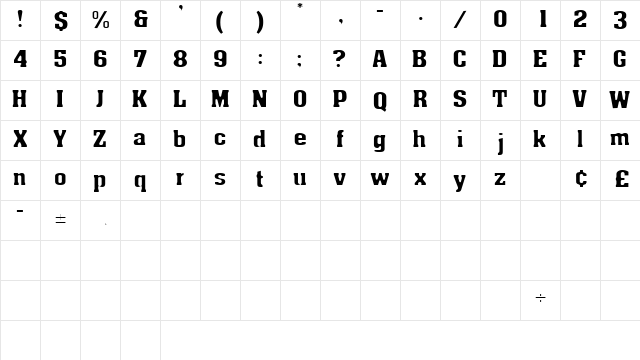
EuphemiaSSK Regular
Design Context for EuphemiaSSK Typeface
EuphemiaSSK offers clean, dependable letterforms without strong stylistic allegiance, making it a practical choice for designers who need flexibility.
Pro Tip: Pair EuphemiaSSK with a font of contrasting weight or personality to build a more expressive typographic hierarchy.